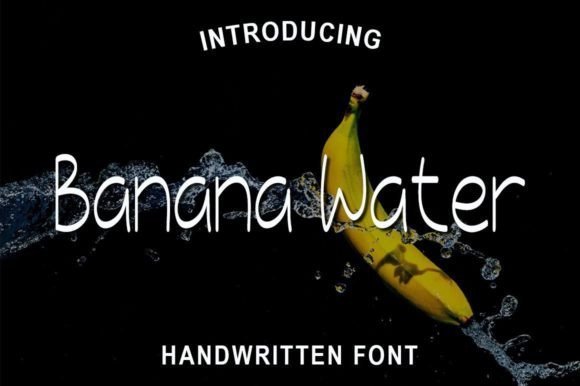
The Perfect Splash of Personality: Introducing Banana Water Font
Have you ever sat at your desk, staring at a blank sheet of paper, trying to come up with the perfect phrase to write to a friend or loved one? The blank page can be intimidating, but with the right tool, the words start flowing. For designers and creatives, finding the perfect font can make all the difference in bringing their vision to life.
Enter Banana Water Font, a beautiful script font designed with hand touches and scratches to add a personal touch to any project. Whether you’re writing a heartfelt letter, designing an invitation, or simply looking for a unique font to spice up your designs, Banana Water Font is the perfect addition to your toolkit.
With its unique character and versatility, Banana Water Font is a valuable asset for designers looking to add a little extra flair to their work.
Banana Water Font Key Features
- Font Family: Banana Water is a unique, hand-drawn font designed for creative and artistic purposes.
- Unique Characteristics: This font features a playful, hand-drawn style with a mix of curved and straight lines, making it perfect for adding a touch of whimsy to designs.
- Character Count: Banana Water includes a wide range of characters, including uppercase and lowercase letters, numbers, and punctuation marks.
Banana Water Font Review
I recently had the chance to work with Banana Water Font, and I must say it’s an interesting choice. Let’s break it down.
- Unique aesthetic: Banana Water Font has a distinct, quirky look that can add a touch of personality to your designs.
- Legibility: Despite its unusual appearance, the font is surprisingly easy to read, even at smaller sizes.
- Customizability: The font comes with a range of weights and styles, allowing you to experiment with different looks and feels.
- Limited flexibility: While Banana Water Font is great for certain projects, it may not be the best choice for more formal or professional designs.
- Consistency issues: I noticed some minor inconsistencies in the font’s spacing and kerning, which can be distracting in certain contexts.
Overall, I think Banana Water Font is a fun and creative choice, but it may not be the best fit for every project. With some careful consideration and planning, it can be a great addition to your design toolkit. However, it’s essential to be aware of its limitations and potential drawbacks.
Banana Water Font is a versatile font that can be used for various purposes, including:
- Summer-themed designs
- Children’s products and packaging
- Wedding invitations and decorations
Tips for Getting the Most Out of Banana Water Font
To get the most out of Banana Water Font, keep the following tips in mind:
<
- Use Banana Water Font for menu headings and highlights, such as “Sunday Funday” or “Banana Pancakes.”
- Combine with colorful illustrations of fruits and breakfast items to create a lively atmosphere.
- Consider adding a subtle gradient effect to the background to give it a fun, playful feel.
- Use bold typography to highlight daily specials and promotions.
- Use Banana Water Font for headings and subheadings, such as “Exploring the World” or “Top 5 Destinations.”
- Combine with high-quality travel photographs to create a visually stunning layout.
- Consider adding a subtle texture effect to the background to give it a natural, earthy feel.
- Use a clean and simple layout to focus attention on the stunning images and travel stories.
- Use Banana Water Font for character names and dialogue, such as “Max” or “I love ice cream.”
Unlocking Creativity with Banana Water Font
Project 1: Whimsical Breakfast Menu
A playful breakfast menu that brings a smile to customers’ faces, using Banana Water Font to add a touch of whimsy.
Project 2: Minimalist Travel Blog
A modern travel blog that showcases stunning destinations and experiences, using Banana Water Font to add a touch of elegance.
Project 3: Children’s Book Illustrations
A colorful children’s book that brings stories to life, using Banana Water Font to add a playful touch.